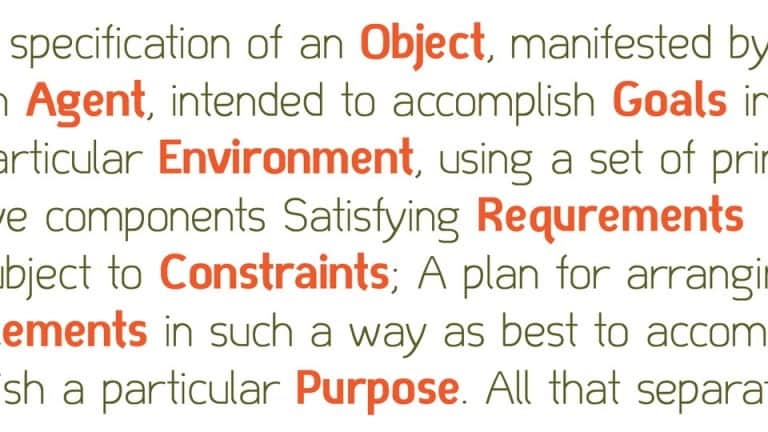
Dimitrina Sans Serif Font
Dimitrina Sans Serif Font is a roundish, minimalistic, sans serif font design. It’s perfect to use for your logo design but fits in every situation. It includes upper- and lowercase letters as well as numbers and some additional characters.
Dimitrina Sans Serif Font was created with a simple premise: Can there exist a typeface which features a minimum of sharp angles? And a readable typeface, as well? With these strict rules in mind, the development started. At first the typeface looked more like a script, and some characters ( M G or R, to name a few) still hold traces of a handwritten style which spices the overall taste of Dimitrina. Since the first draft every character was redrawn, and edited several times, for the purpose of making the typeface readable, and distinct at the same time.